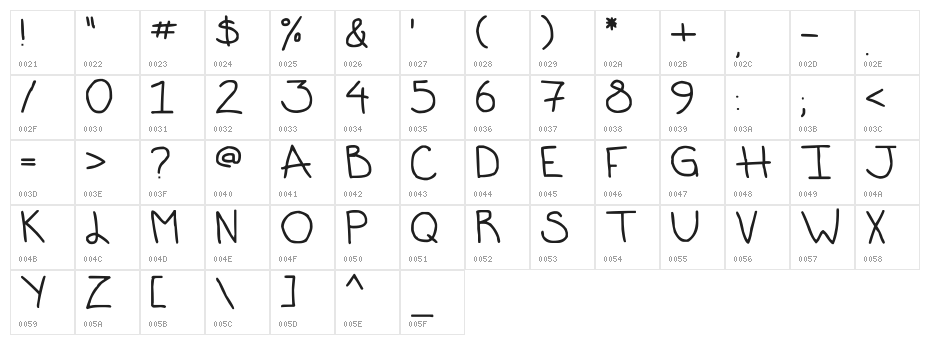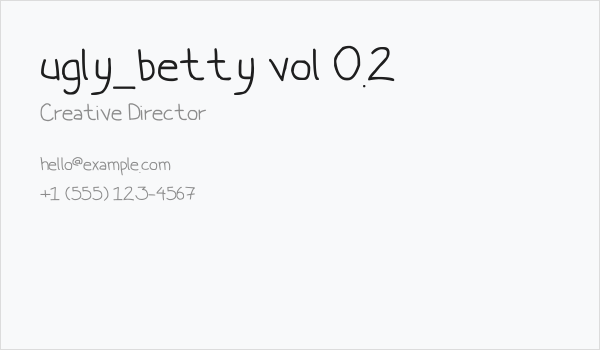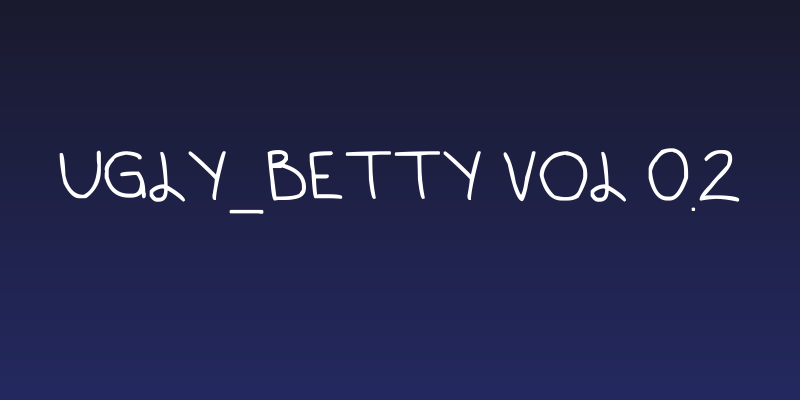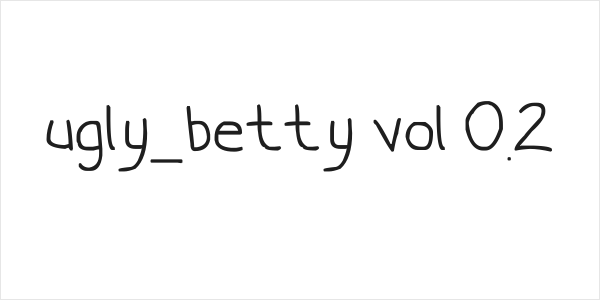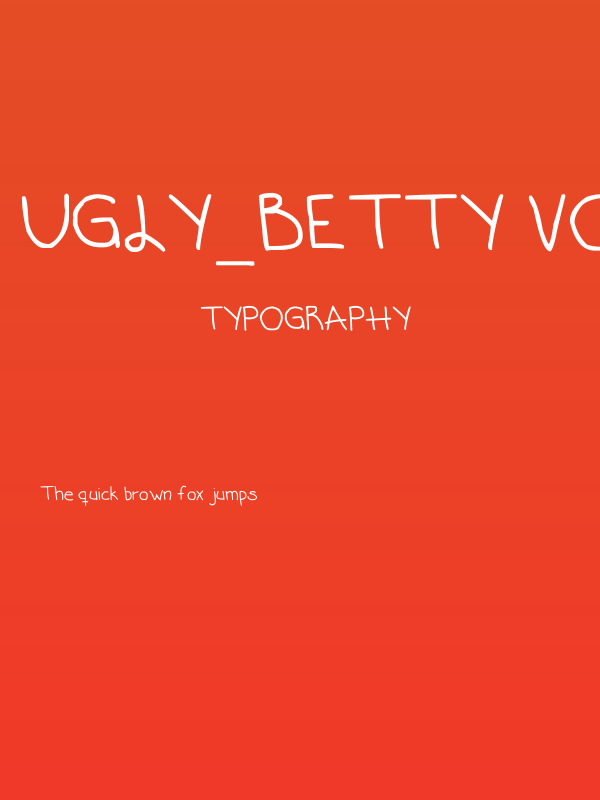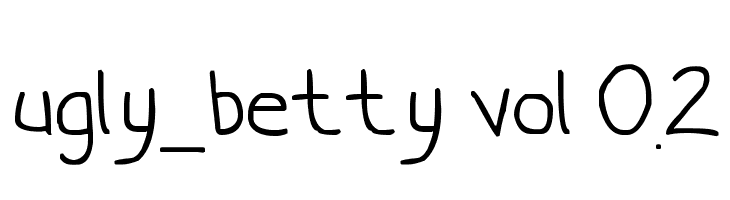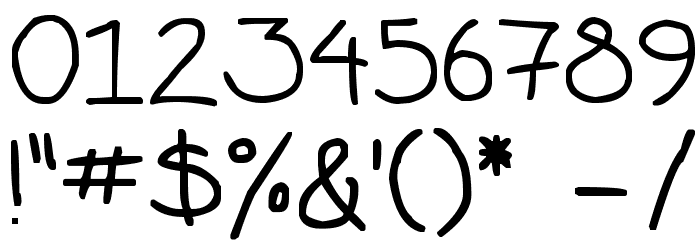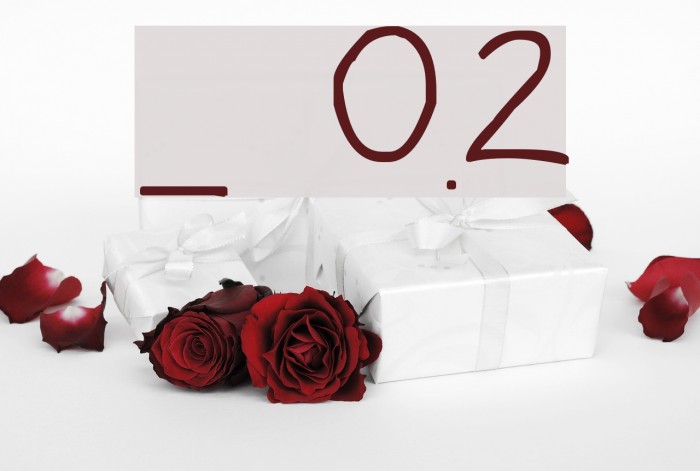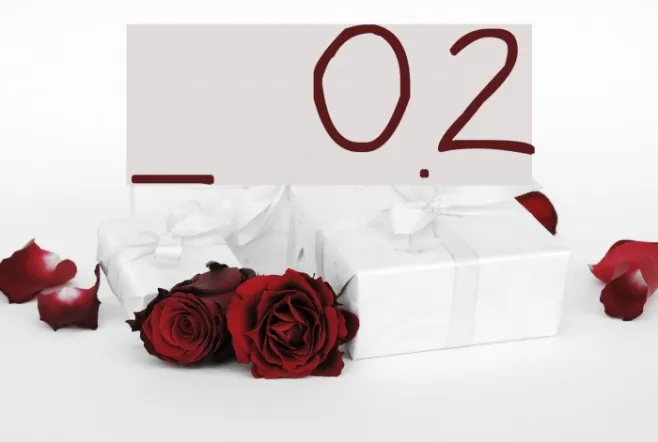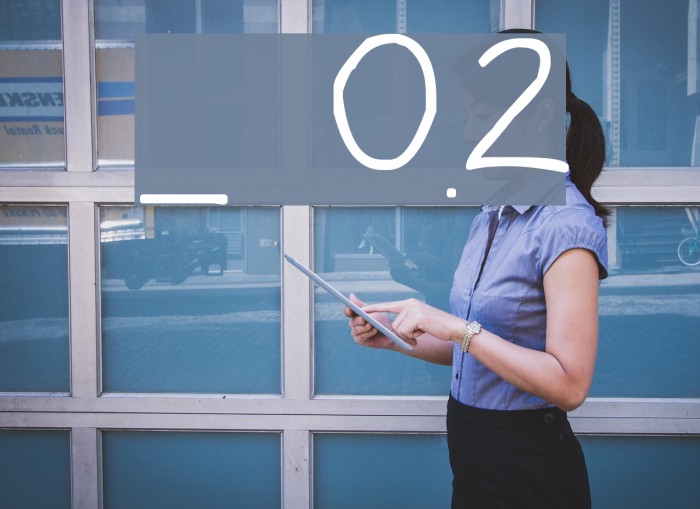
ugly_betty vol 0.2 Font
ugly_betty vol 0.2 Description
This font exhibits a playful and informal style, characterized by its hand-drawn appearance. The letters are slightly irregular, giving it a casual and approachable feel. The strokes are consistent in width, contributing to a uniform look despite the whimsical nature. The uppercase and lowercase letters maintain a coherent style, with rounded edges and a slight tilt that adds to the font's charm. The numerals and special characters follow the same playful design, ensuring a cohesive appearance across all elements.